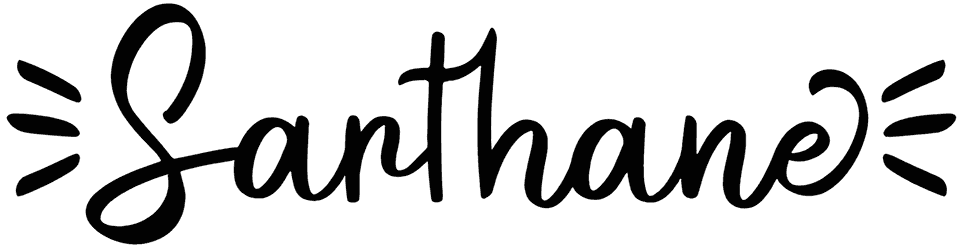
Sarthane Font
Check out our attractive handwritten font, Sarthane, which comes with extra swashes and a connected style. It doesn’t include numbers and some punctuation. It has a casual and happy feeling that is perfectly suited to creating an informal event flyer. This beach font can also be used for product packaging, book covers, wedding invitations, branding projects, and greeting cards.